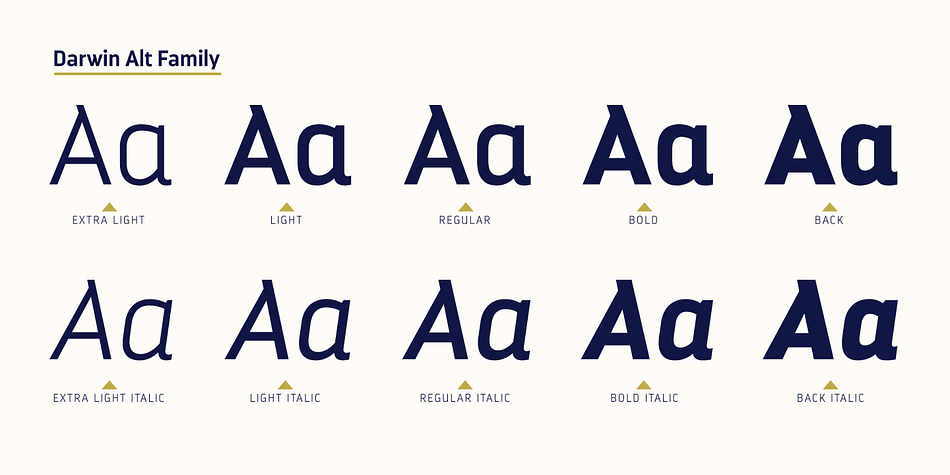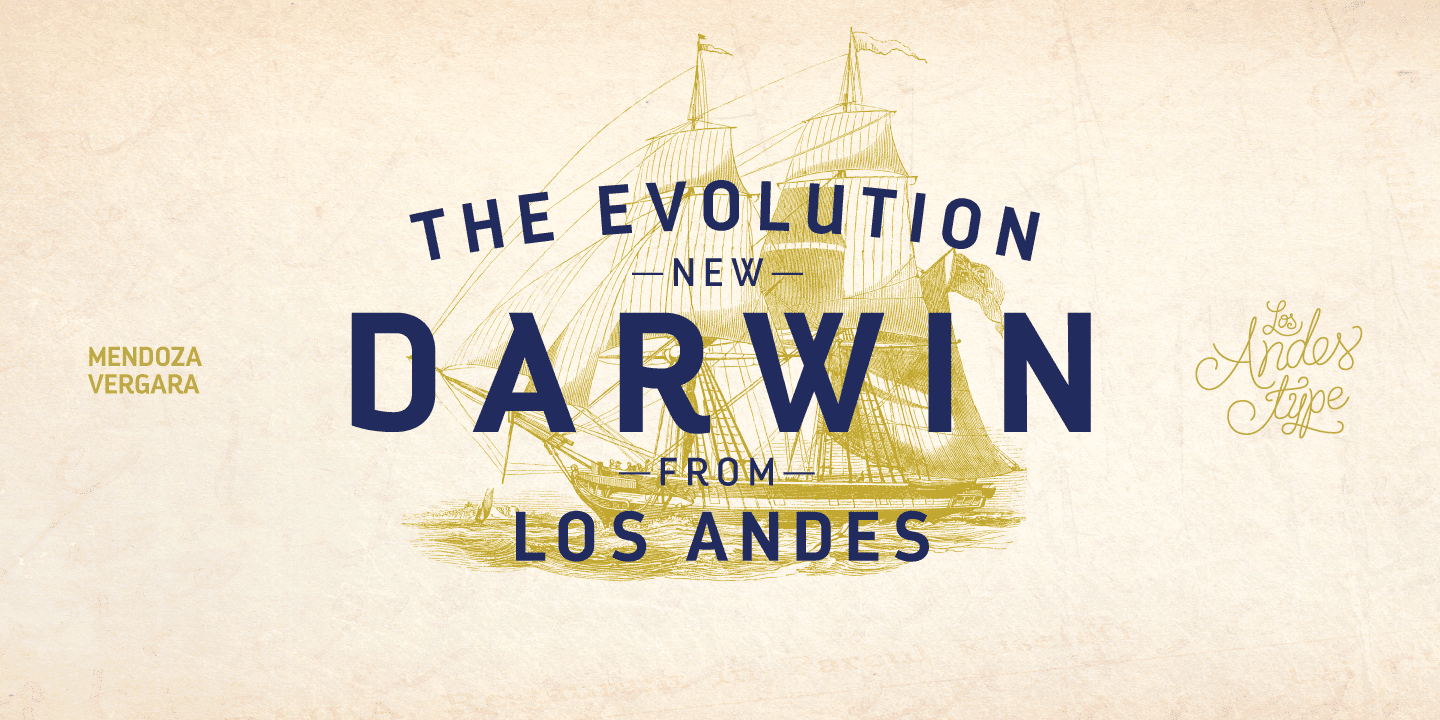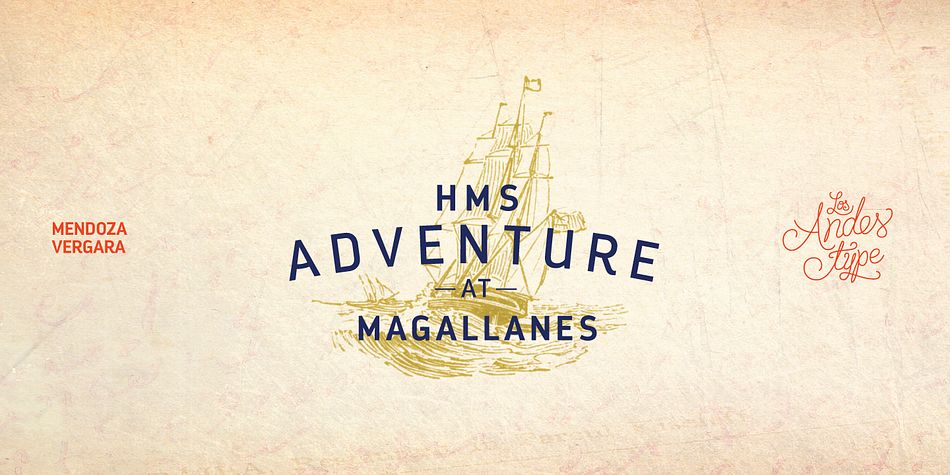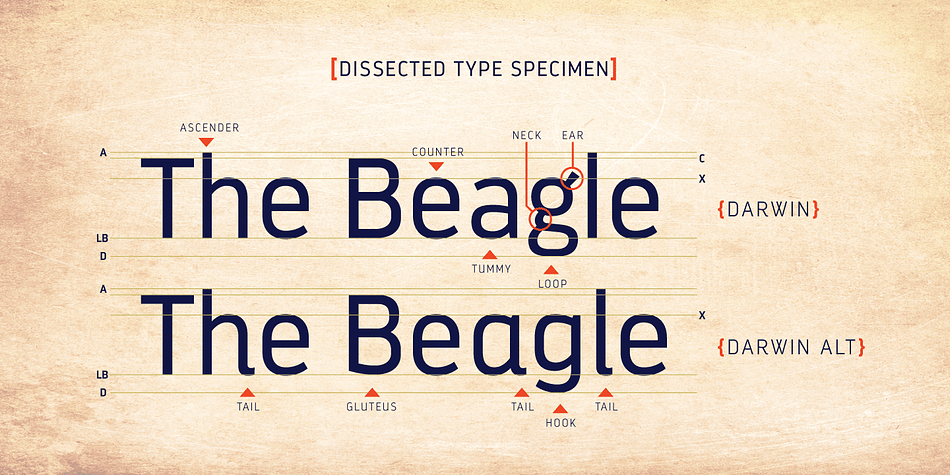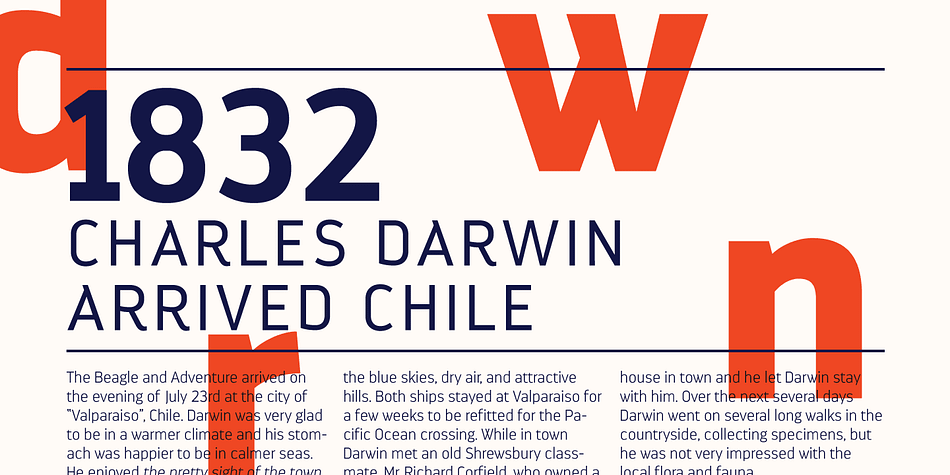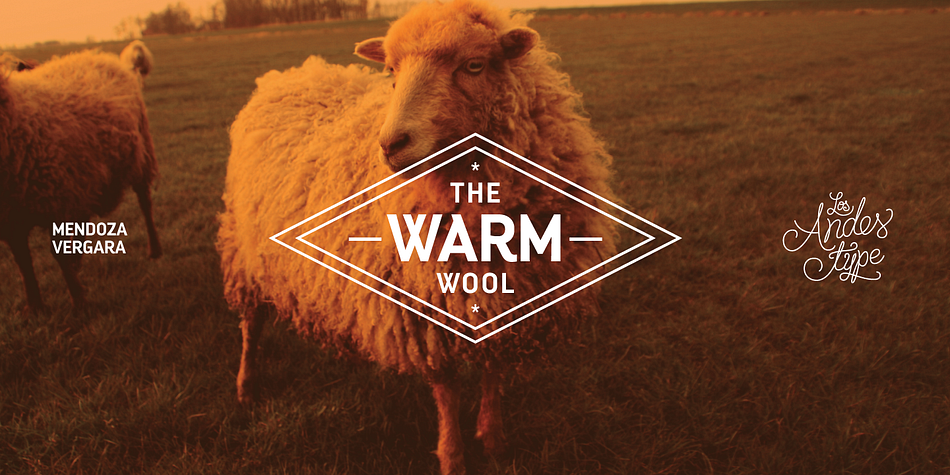
Darwin is a sans serif font family. This typeface has twenty styles and was published by Los Andes Type.
Darwin font family is a eclectic mix of grotesque, geometric and humanistic styles, includes 20 fonts, 10 normal and 10 alt sub family, the alt variant gives spice to the compositions. The font family is good for headlines, little text, posters and logos